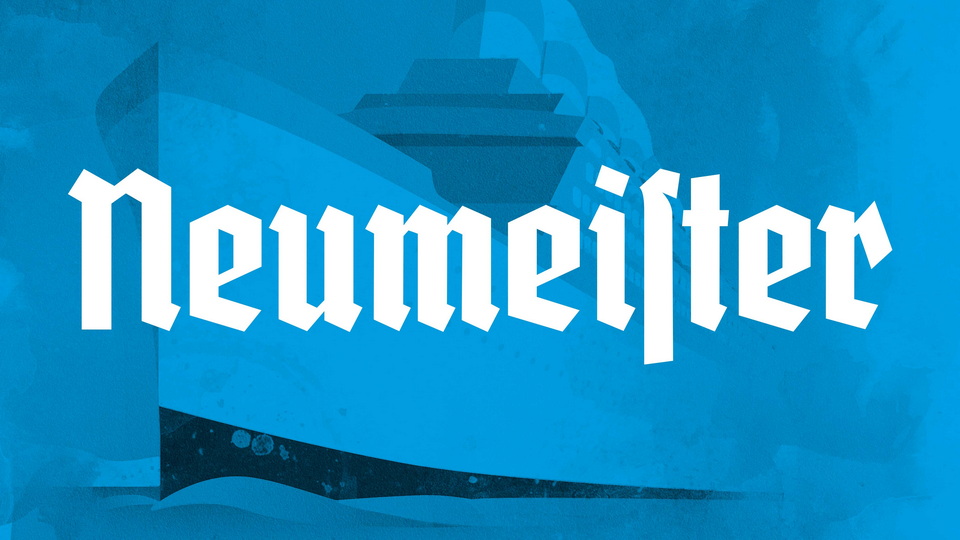
Download FDI Neumeister font, a carefully crafted revival of typeface that was originally released during the 1930s as part of the Deutschmeister font family at the type foundry Ludwig Wagner.
Designer: Ralf Herrmann